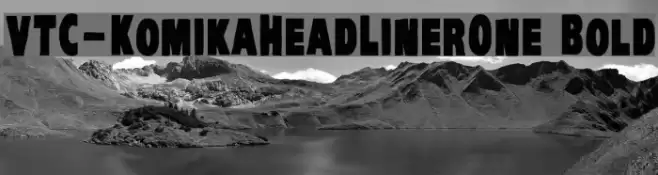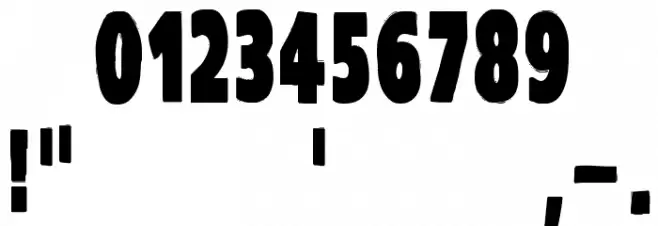
VTC-KomikaHeadLinerOne Bold Font
VTC-KomikaHeadLinerOne Bold Description
This bold, impactful font features thick, heavy strokes that create a strong visual presence. The characters are uniformly wide, with a slightly condensed appearance that enhances their boldness. The uppercase letters are particularly striking, with a blocky, robust design that commands attention. The numbers and special characters maintain the same weight and style, ensuring consistency across all elements. This font is ideal for making a statement, with its high contrast and powerful aesthetic.
A bold, impactful font with thick strokes and a strong visual presence from Uncategorized fonts.
- Proposed Projects: Perfect for headlines, posters, and branding materials where a strong, commanding font is needed.